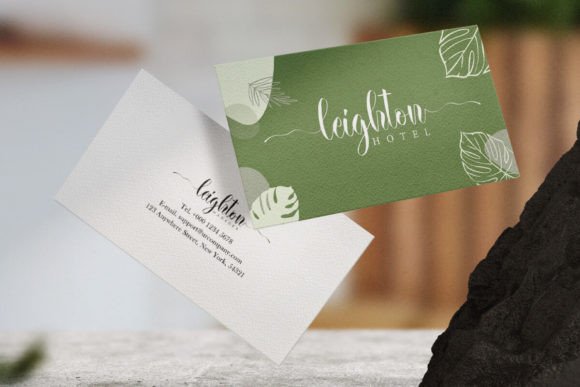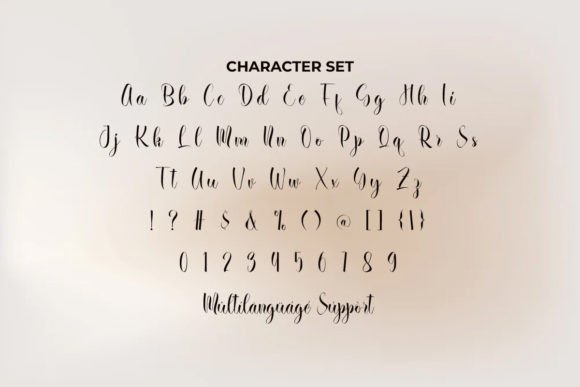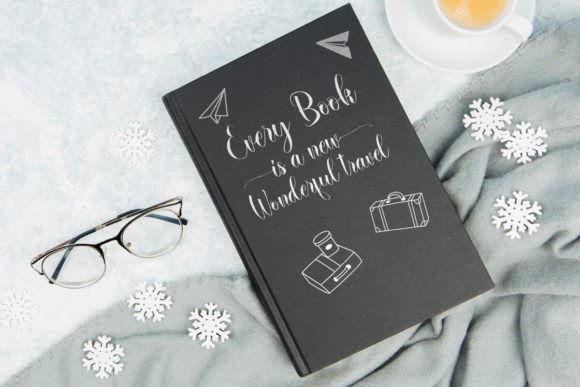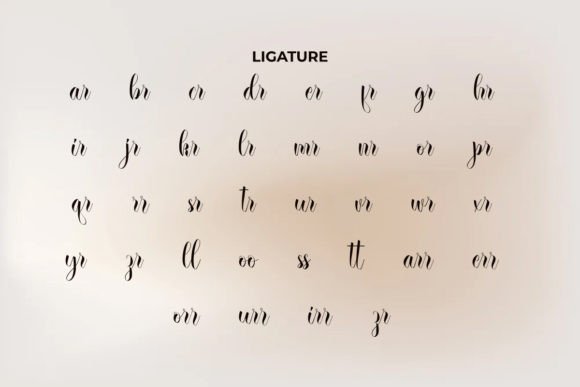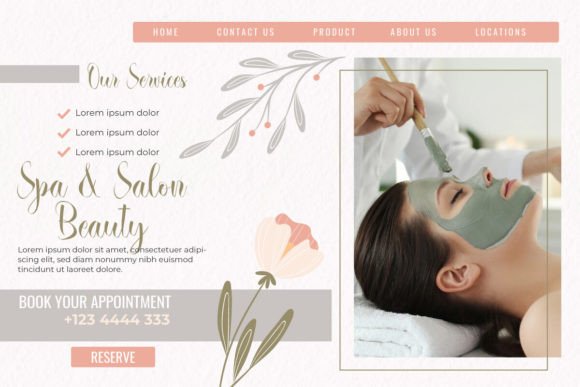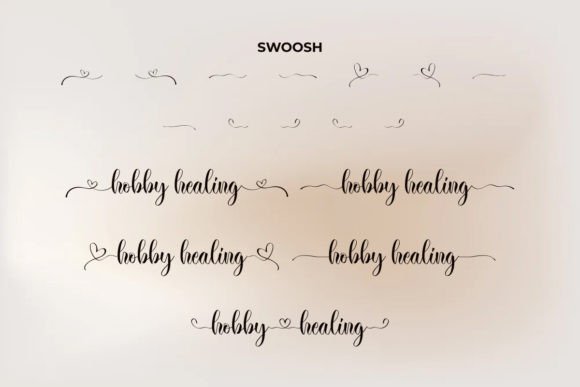
Introduction to Hobby Healing Font
Have you ever stumbled upon a design that speaks directly to your soul? Maybe it’s a beautifully crafted business card or a stunning invitation that catches your eye. For designers, finding the right design resource can be a game-changer, and that’s exactly what Hobby Healing Font offers.
As you browse through the lovely calligraphy font, you’ll be delighted by its romantic love theme and beautiful waving lines that seem to dance across the page. With Hobby Healing Font, you can create stunning designs that will leave a lasting impression, from custom invitations and labels to magazine catalogs and product packaging. Whether you’re working on a creative project or simply looking for a high-quality font to elevate your designs, Hobby Healing Font is a valuable addition to your design toolkit.
Key Features of Hobby Healing Font
- Unique, Hand-Drawn Design: The Hobby Healing Font features a distinctive, hand-drawn design that adds a personal touch to any creative project.
- Perfect for Creative Projects: Hobby Healing Font is ideal for designers working on creative projects, such as invitations, greeting cards, and other paper crafts.
Honest Review: Hobby Healing Font
I recently stumbled upon the Hobby Healing Font, a design resource that caught my attention with its unique and soothing aesthetic. As a designer, I appreciate fonts that can elevate a creative project and make it stand out.
Here are some aspects that I found particularly impressive about this font:
- ✨ High-quality design that’s perfect for creating a calming atmosphere
- ⚠️ Limited font styles, which may not be suitable for complex or multi-faceted projects
Overall, I’m impressed with the Hobby Healing Font’s potential to enhance a design project. While it may have some limitations, its unique design and free download make it a valuable resource for designers looking to add a touch of serenity to their work.
Hobby Healing Font
Designing with Hobby Healing Font
Hobby Healing Font is a high-quality, free download design resource perfect for creative projects. Its transparent background makes it easy to incorporate into various designs.
Getting the Most Out of Hobby Healing Font
To get the most out of Hobby Healing Font, experiment with different font sizes, styles, and effects. Combine it with other design elements to create a unique and eye-catching design.
Common Use Cases for Hobby Healing Font
Hobby Healing Font is perfect for various creative projects, including digital art, graphic design, and scrapbooking. Its transparent background makes it easy to incorporate into digital designs.
Yes, the Hobby Healing Font features a transparent background, allowing you to easily combine it with other design elements and backgrounds. This makes it a versatile design resource for any creative project.
Q: What is the recommended size range for using the Hobby Healing Font?
The Hobby Healing Font is designed to be highly scalable, making it suitable for use in a wide range of sizes, from small text labels to large headings. However, for optimal legibility, we recommend using the font at sizes between 12pt and 72pt.